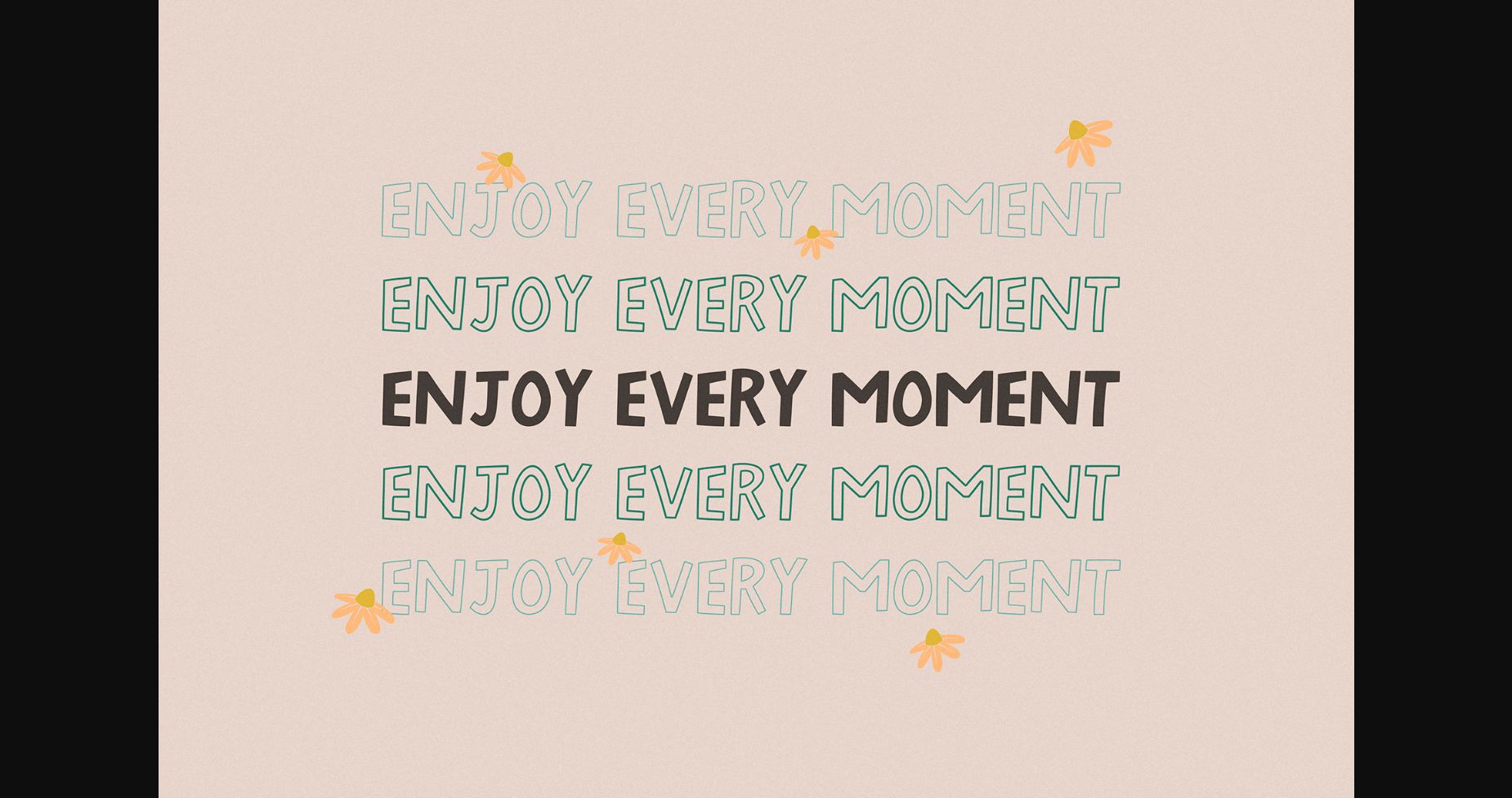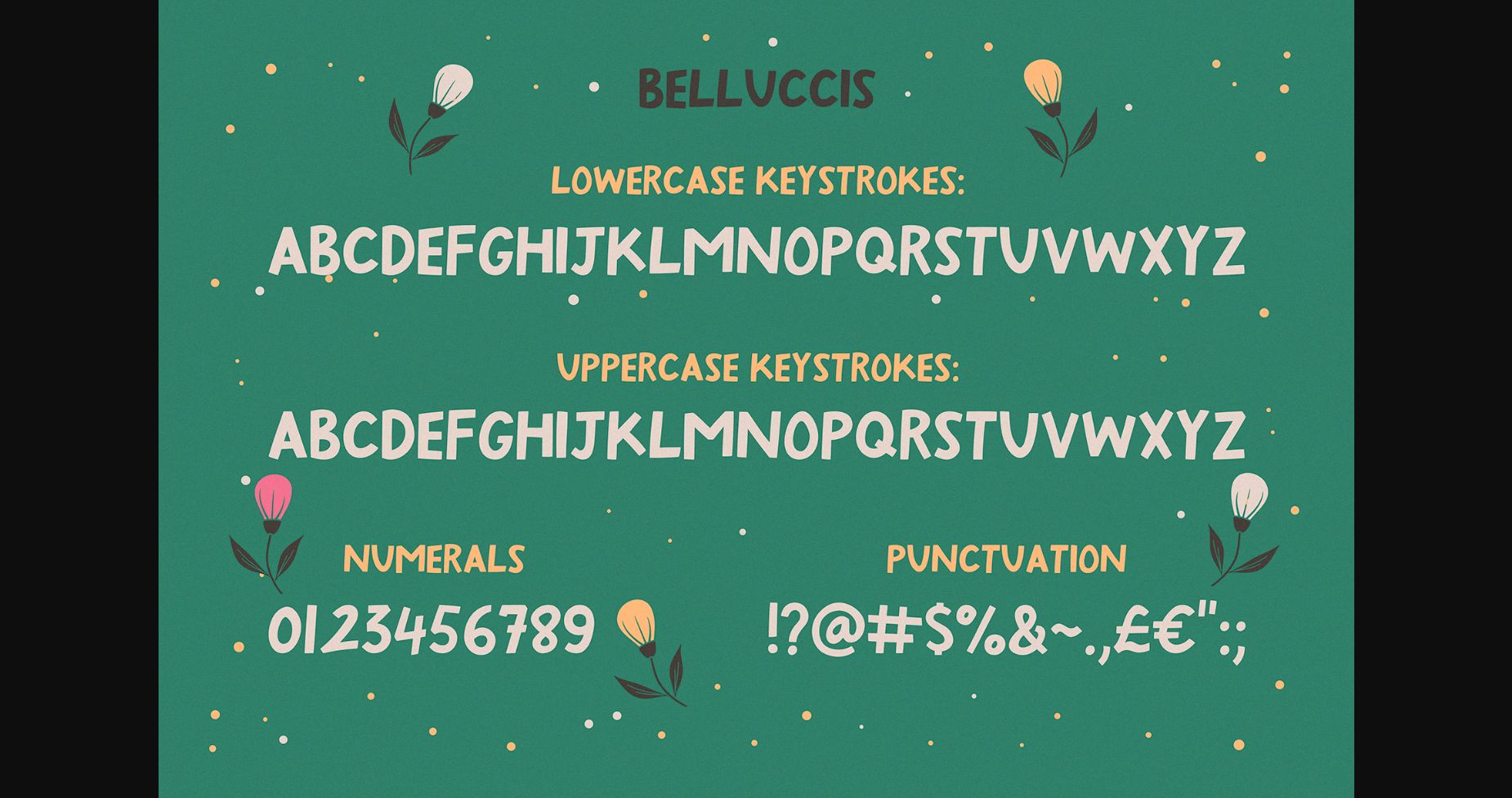
About Belluccis Font
Belluccis is the perfect sans serif for experimenting with bright and modern typographic designs in any modern design!!
This modern SVG font family is great for outstanding quotes, playful branding, children’s books, fancy greeting cards, and more!